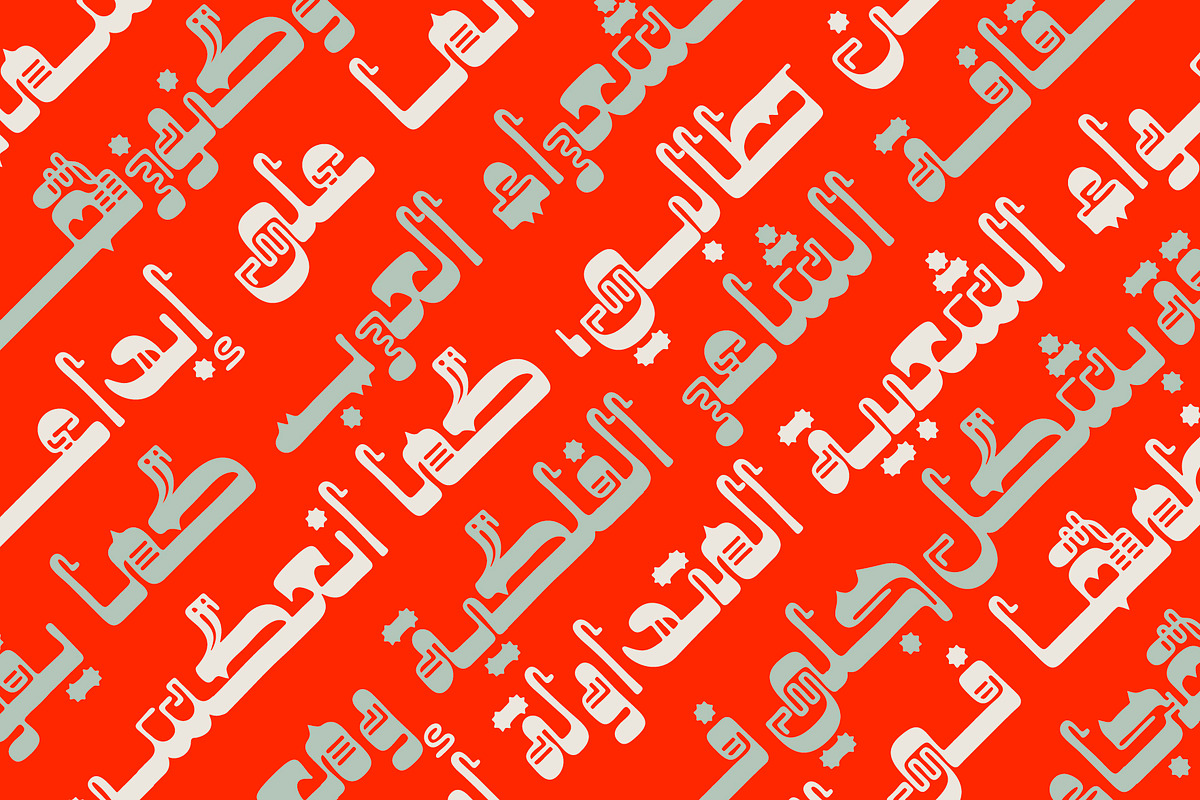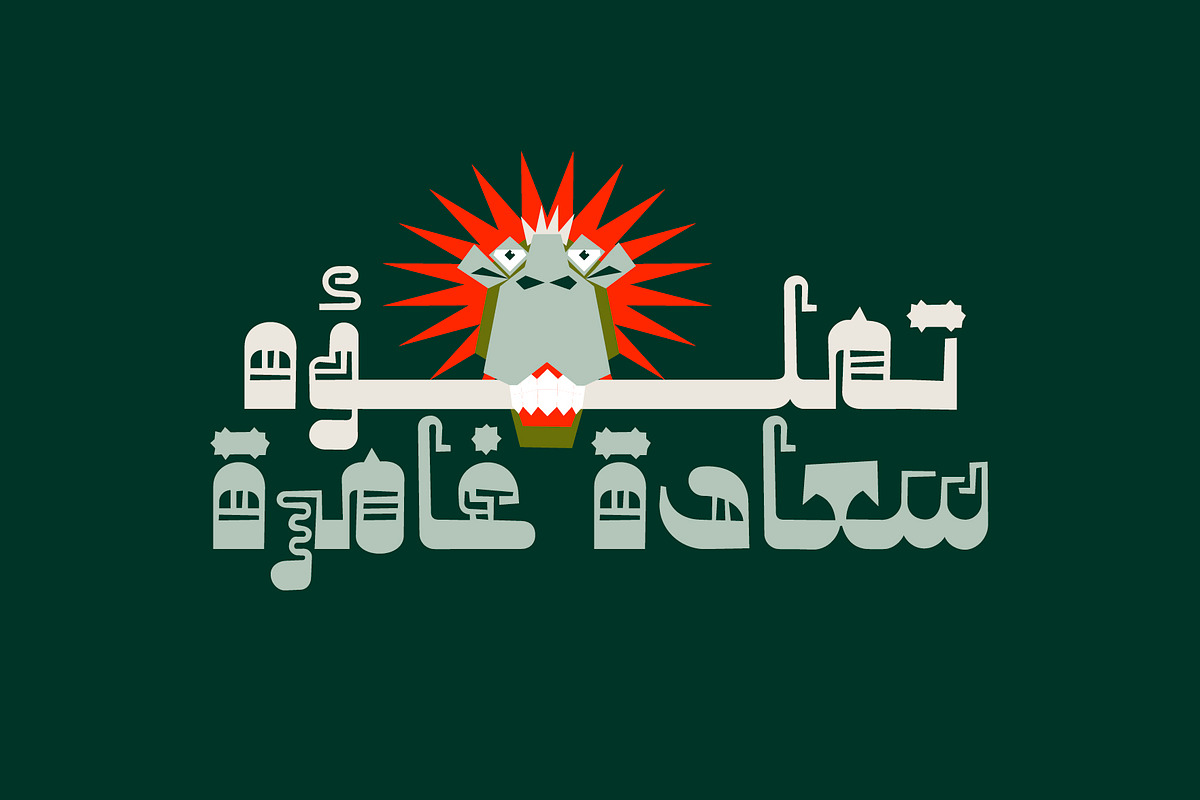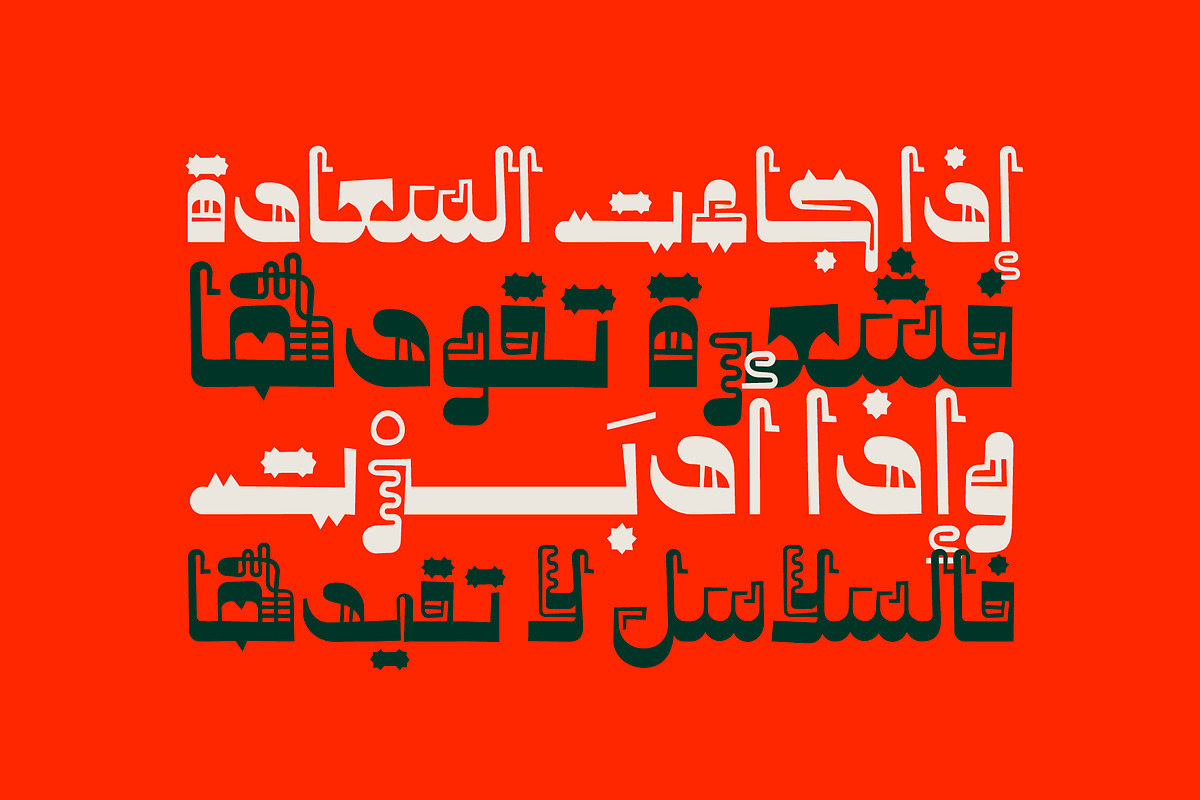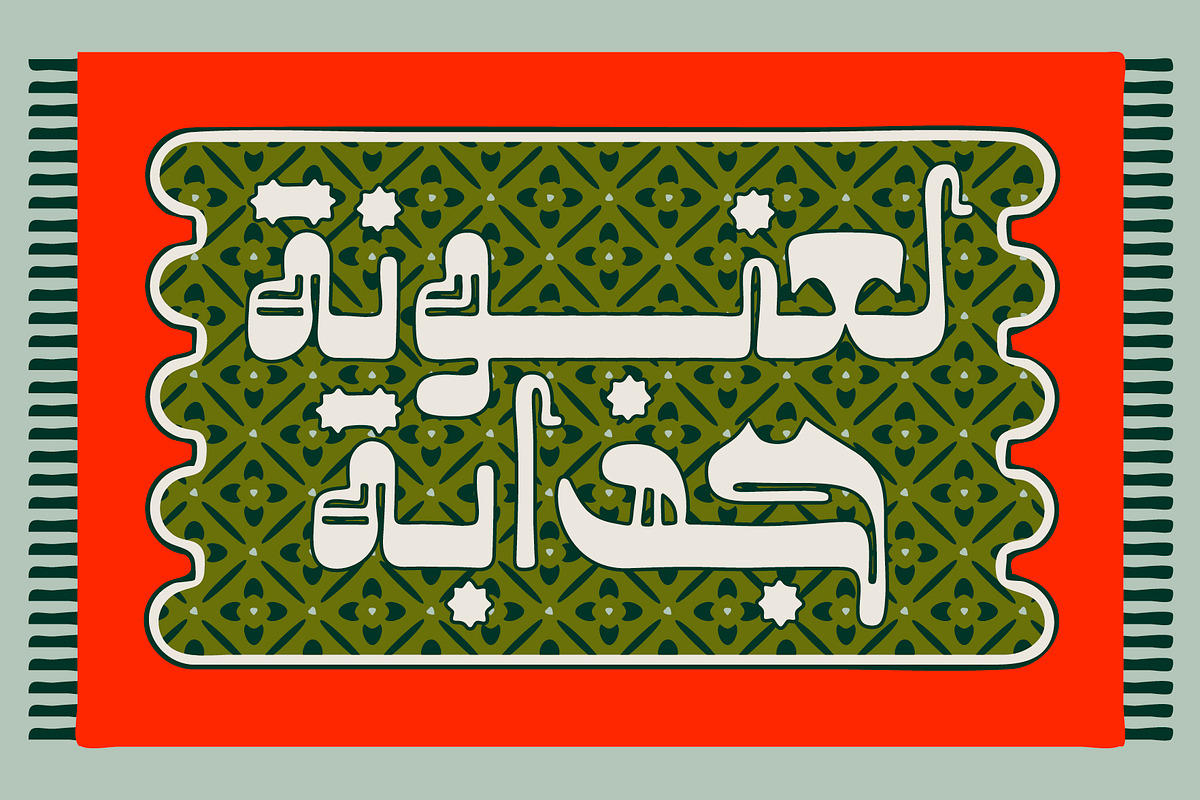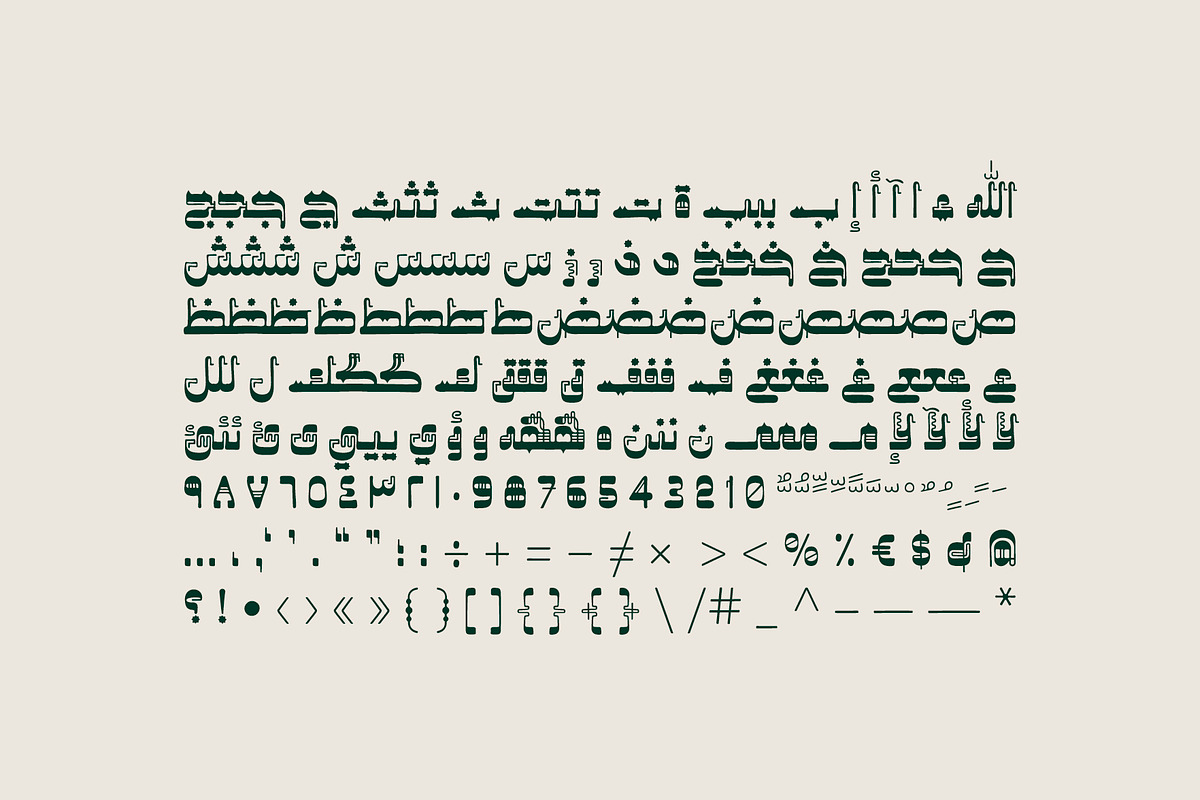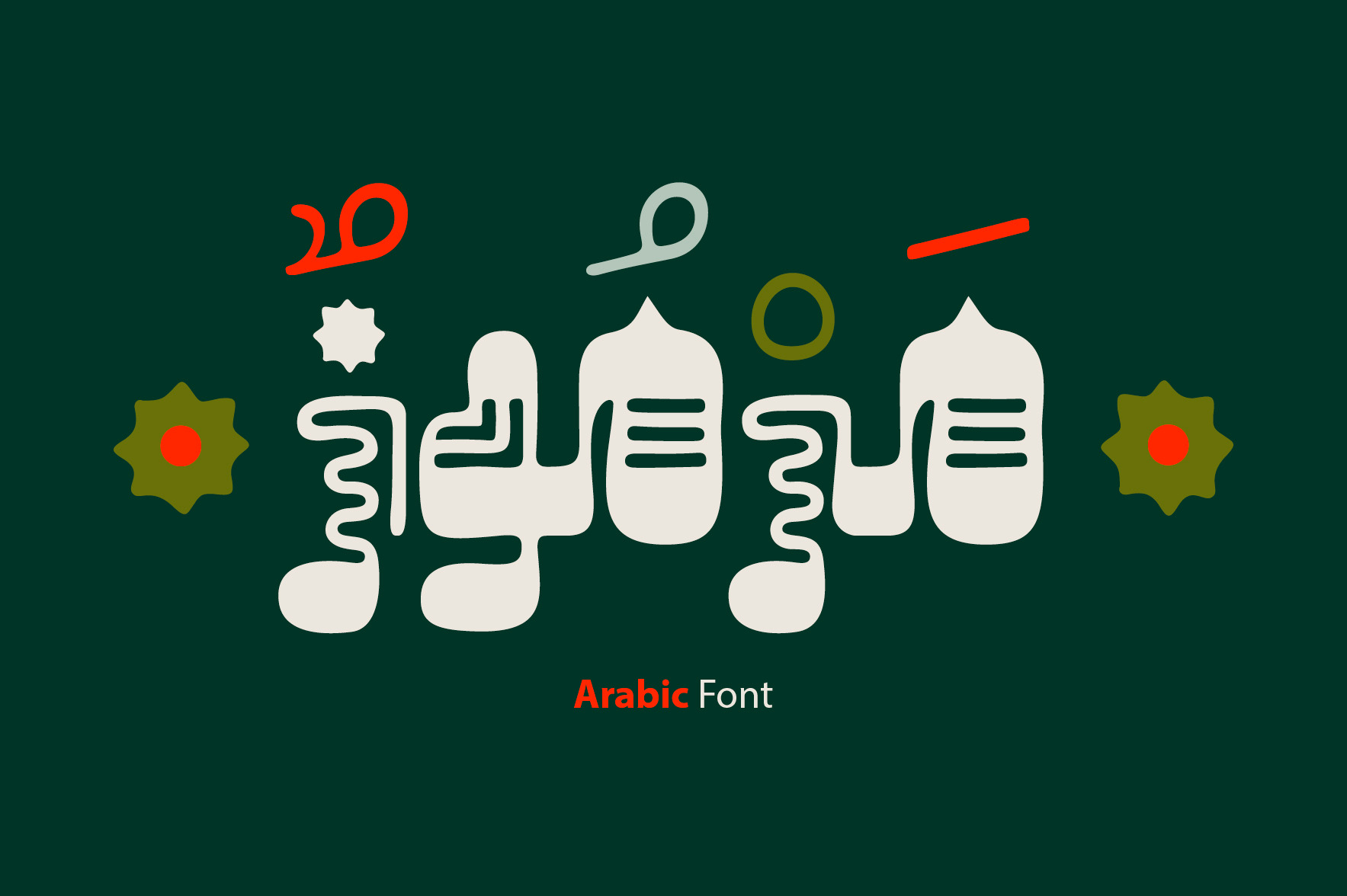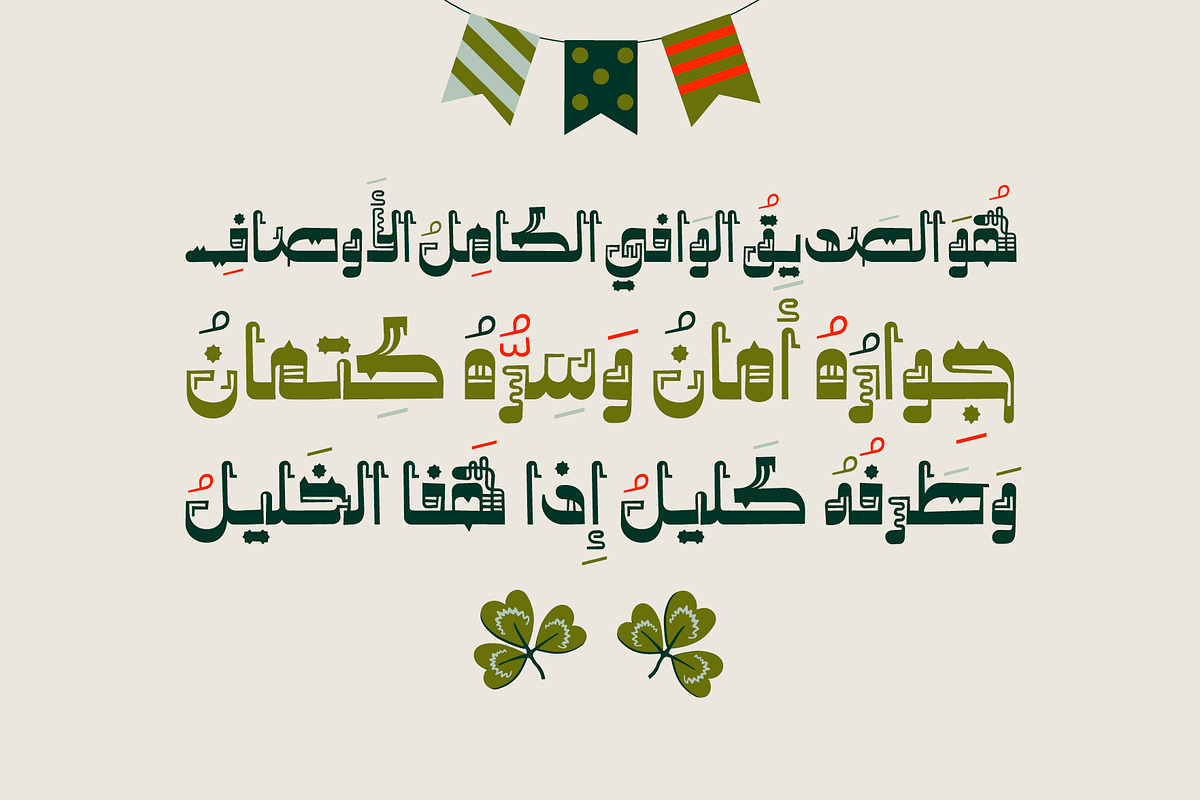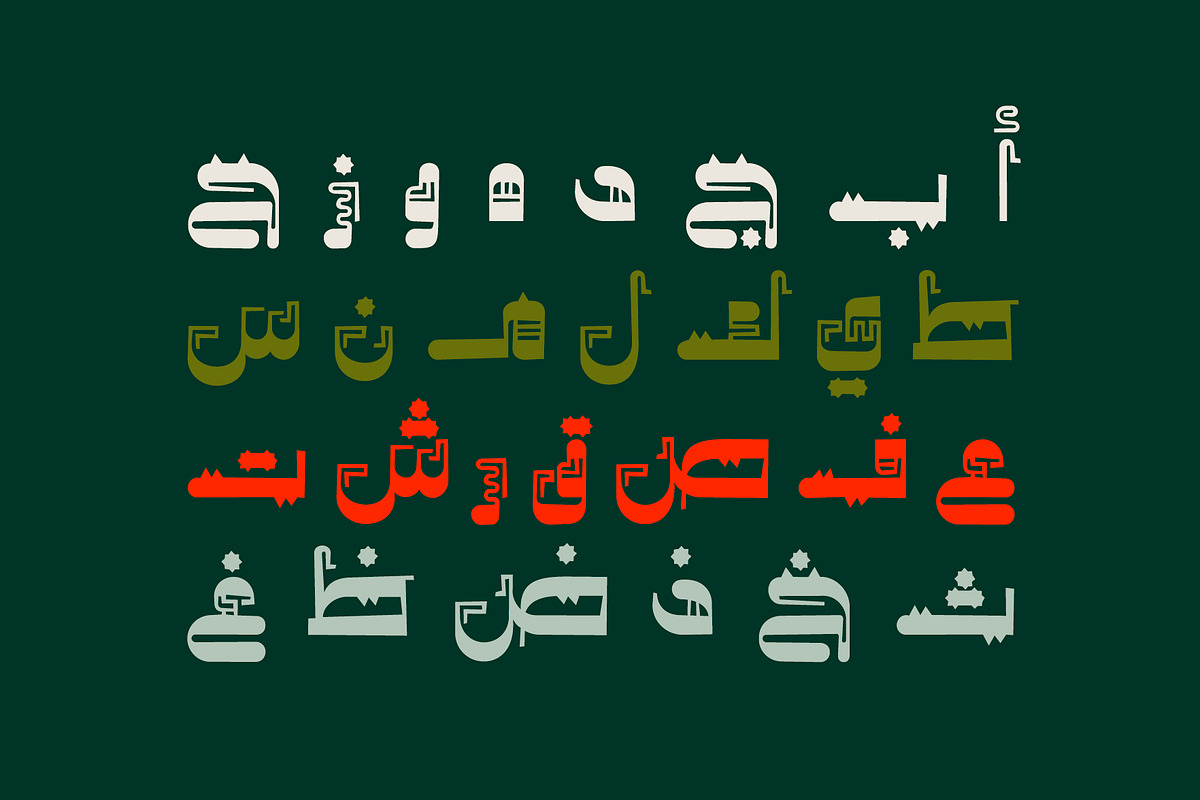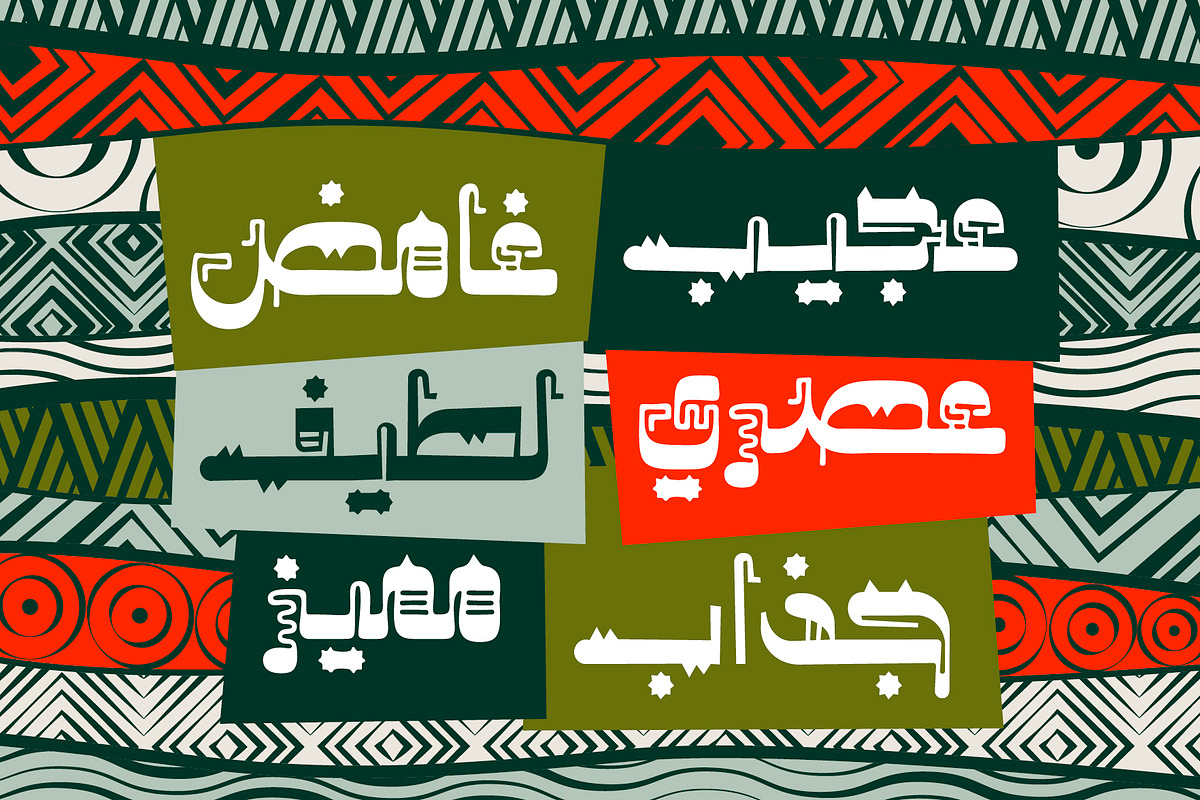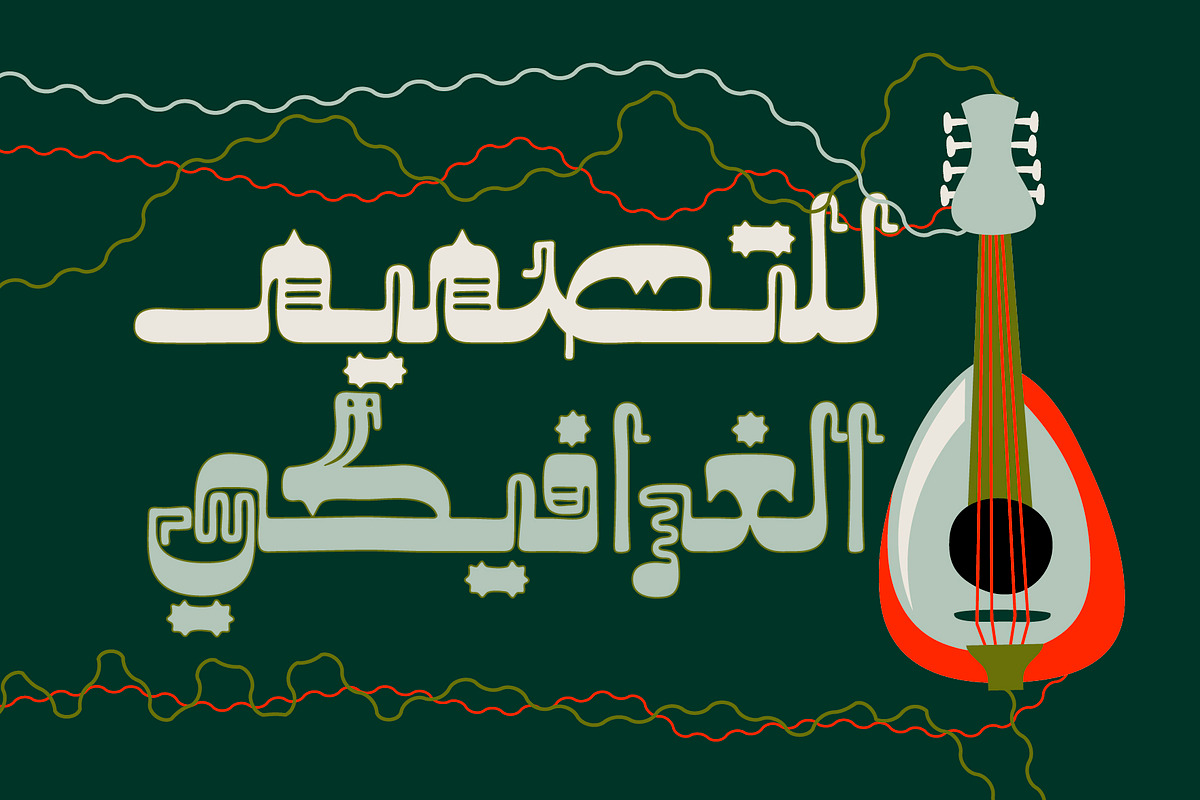
Marmooz - Arabic Font
Marmooz (the Arabic word for 'Symbolized') is an Arabic display font that features distinctive decorative style. Marmooz family include two separate fonts in two different letterform styles (Soft and Sharp). The font is suitable for all creative projects and it supports Windows ,macOS and mobile applications.